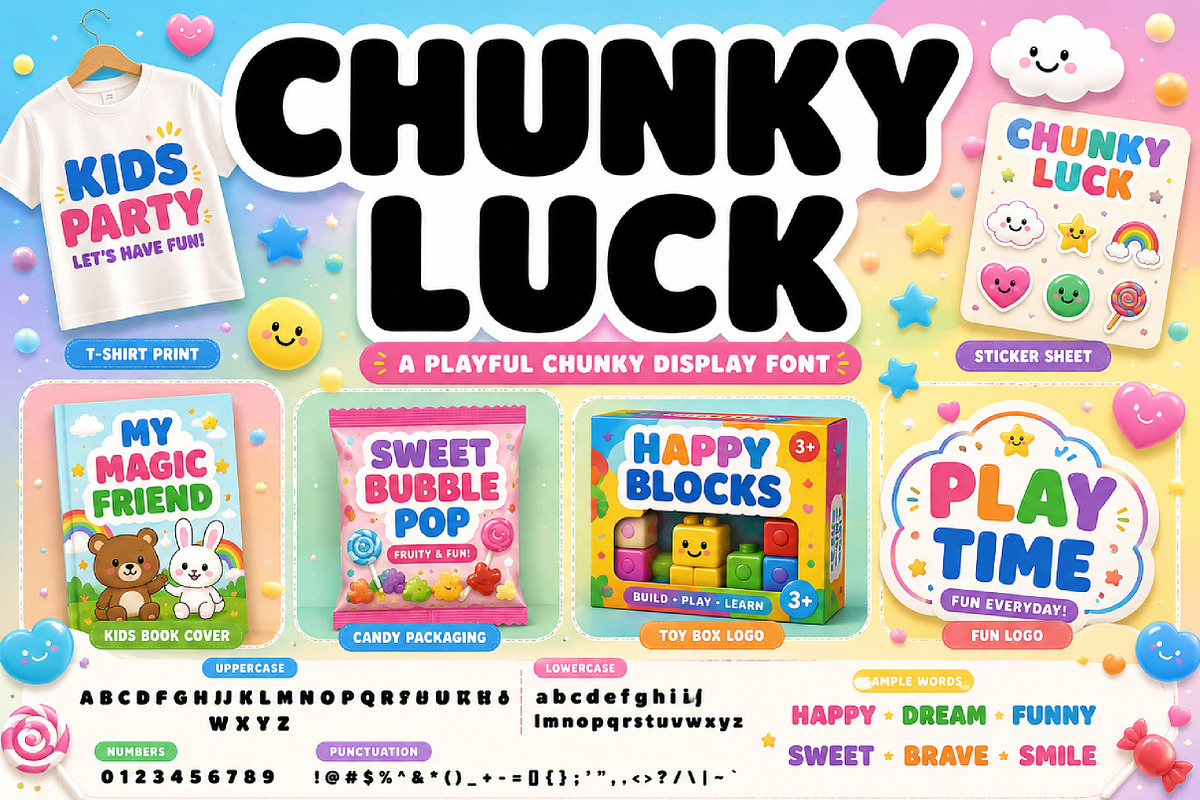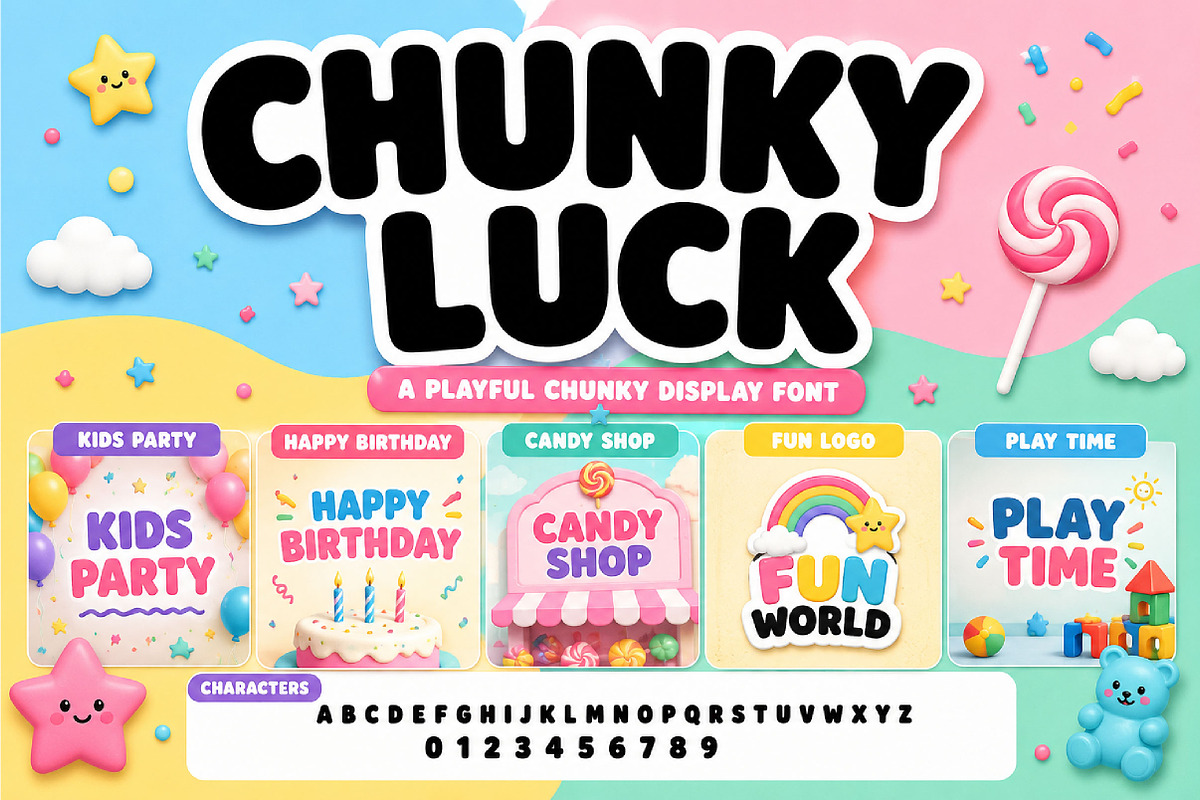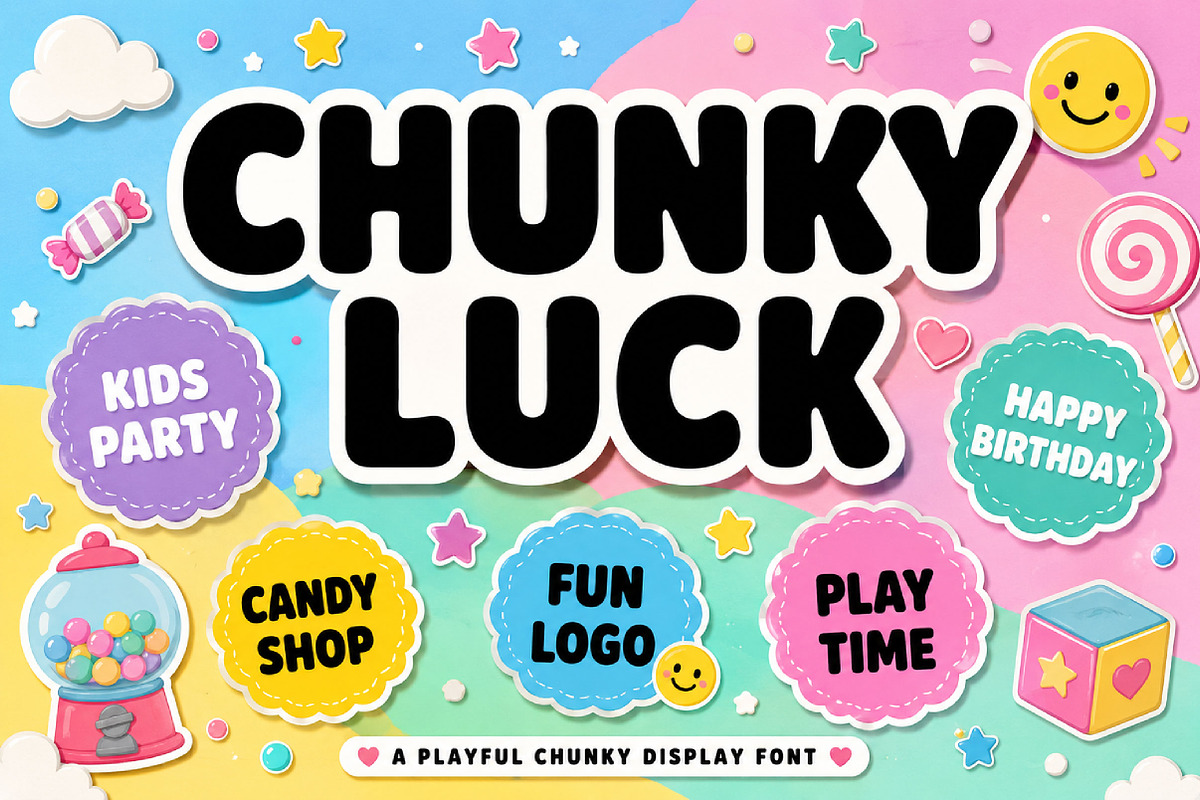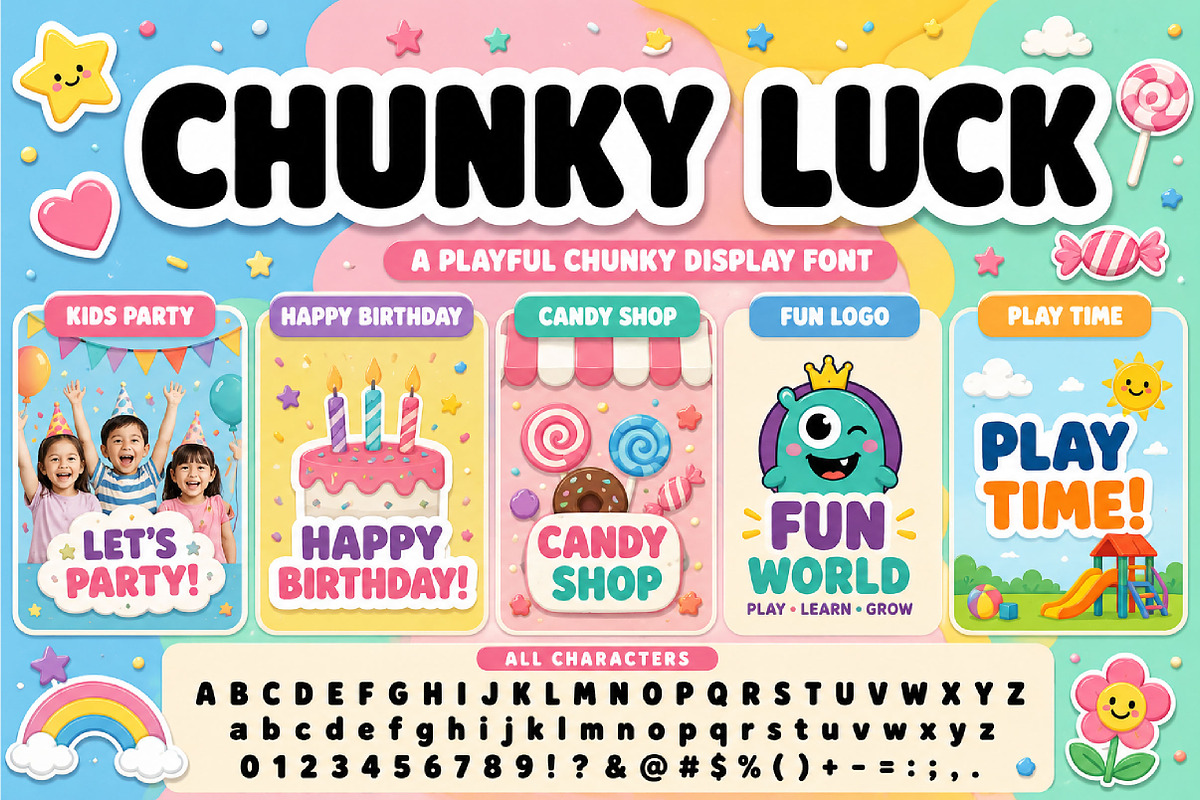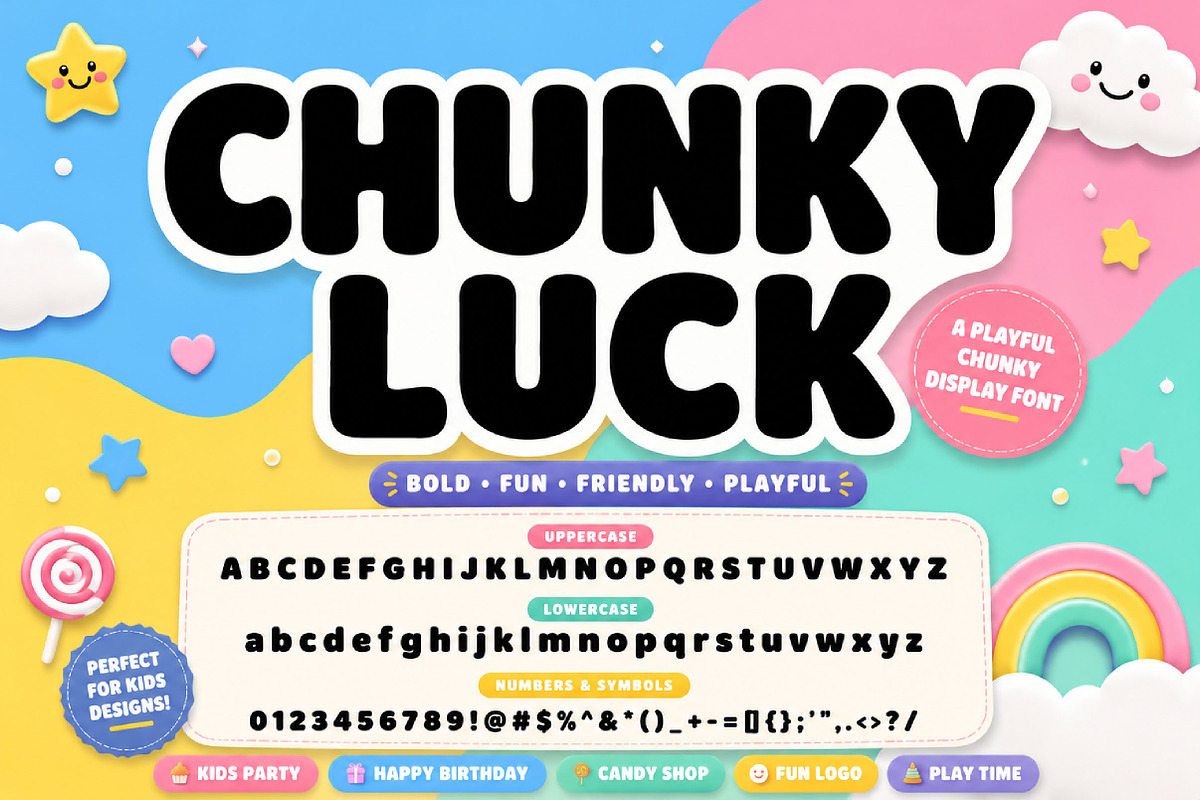
CHUNKY LUCK
Chunky Luck – Bold Retro Display Font
Chunky Luck is a bold and playful retro display font with thick rounded shapes, perfect for posters, logos, packaging, branding, headlines, and fun typography projects.
Chunky Luck is a bold retro display font featuring thick, rounded letterforms with a fun and energetic personality. Its chunky shapes create a strong visual impact while keeping a friendly and playful appearance.
Perfect for posters, logos, branding, packaging, merchandise, social media graphics, stickers, headlines, and children’s designs, Chunky Luck brings a cheerful vintage vibe to every project. The smooth curves and heavy weight make it highly readable and eye-catching for both print and digital use.
Whether you’re creating retro-inspired branding, playful packaging, fun apparel, or standout typography, Chunky Luck delivers a bold and memorable style that instantly grabs attention.
Posters
Logos and branding
Packaging design
Merchandise and apparel
Children’s designs
Headlines and titles
Stickers and labels
Retro typography
Fun display projects
Uppercase letters
Lowercase letters
Bold rounded style
Retro-inspired appearance
Playful chunky letterforms
High readability
Perfect for display use